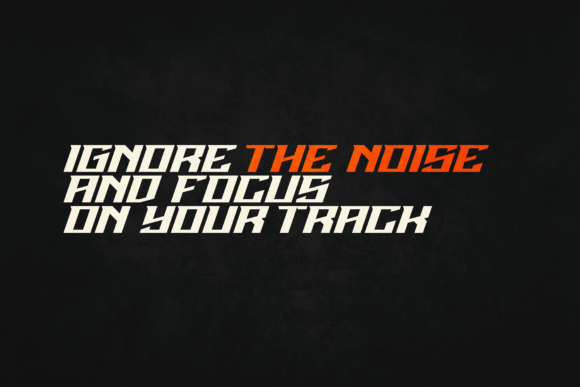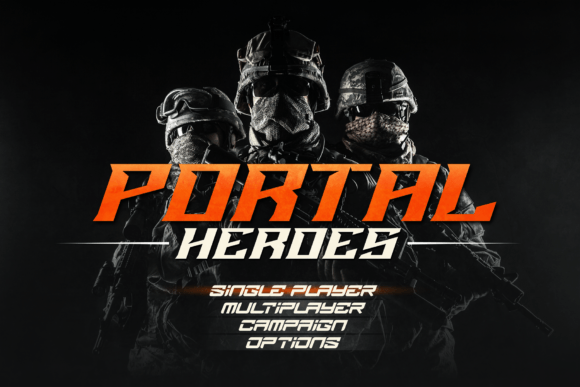
Introduction to Noise Gear Font
Noise Gear is a powerful racing-themed slab serif font.
The font is ready to be used for your racing sports or automotive-related projects Built to be perfect for headlines, jerseys, logos, branding, posters, packaging, advertising, and much more.